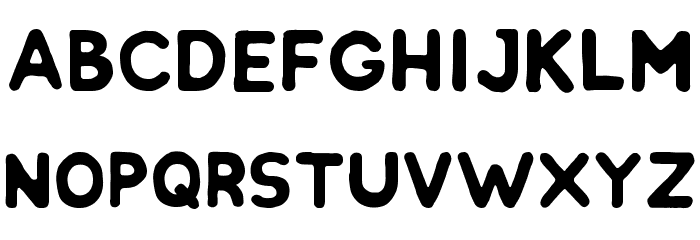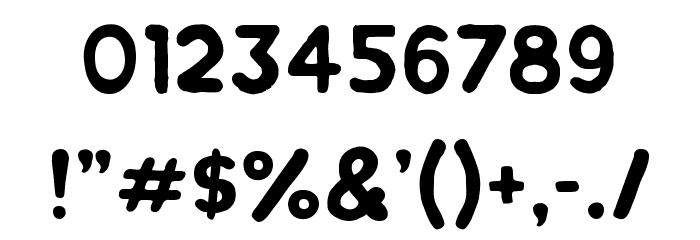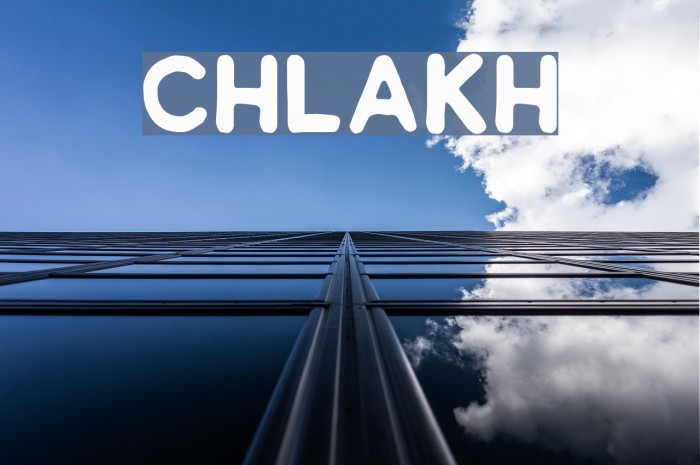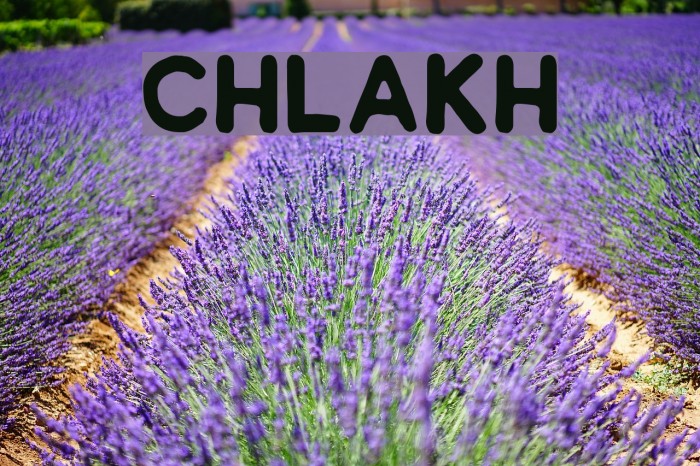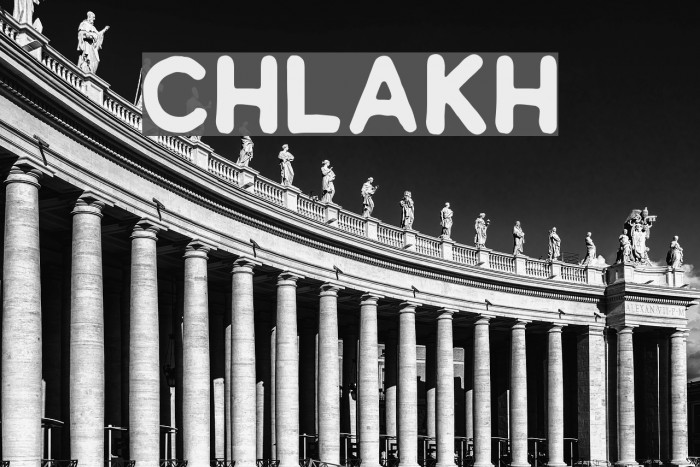
Chlakh Font
This font features a playful and bold design with rounded edges and a slightly irregular shape, giving it a hand-drawn appearance. The characters are thick and substantial, making them highly legible and impactful. The uppercase and lowercase letters maintain a consistent style, with a uniform stroke width that contributes to its cohesive look. The numbers and special characters follow the same design principles, ensuring a harmonious overall appearance. This font is well-suited for projects that require a fun and approachable aesthetic.
A bold, playful font with rounded edges and a hand-drawn feel.
- Proposed Projects: Ideal for children's books, playful branding, posters, and social media graphics.
- Overall Style: Playful, Hand-drawn